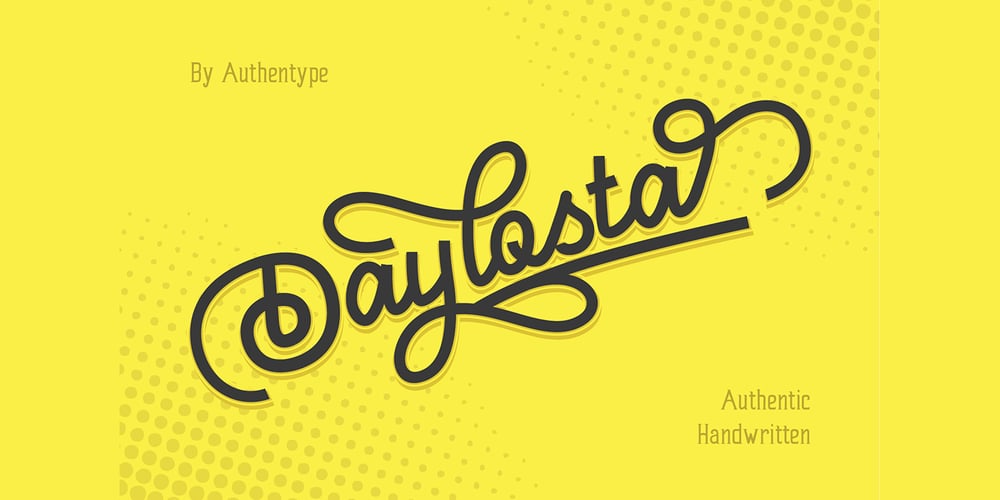
Daylosta Font Family was designed by Mix Jpg and published by Authentype. Daylosta contains 1 styles and family package options. Daylosta Authentic Handwritten Font created by AuthenType. This font features a classic and elegant style, perfect for:The concept of font design for the food, drink and cake industry leads to an energetic and creative youth market processing the taste and color of food.FeaturesStandard glyphs uppercase and lowercase lettersNumerals, a large range of punctuation and ligatures.Lowercase letters include ending swashes.Works on PC & Mac.Simple installations, accessible in the Adobe Illustrator, Adobe Photoshop, Adobe InDesign, even work on Microsoft Word.PUA Encoded Characters – Fully accessible without additional design software.Fonts include multilingual support for; ä ö ü Ä Ö Ü ß ¿ ¡________________________________________________________________________________________________________________________________________________Image used : All photographs/pictures/logo/vector used in the preview are not included, they are intended for illustration purpose only.Thank you for your purchase!Hope you enjoy with our font!Designers: Ekayasa.